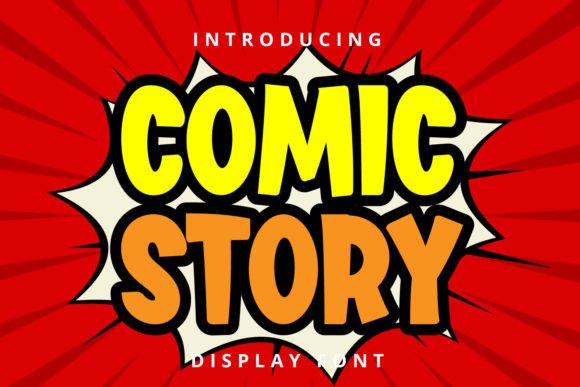
Journey into the realm of imagination with Comic Story Font, a delightful display font brimming with playfulness and authenticity. Specially crafted for children's activities and elementary school designs, this font is guaranteed to captivate young minds and add a touch of whimsy to any project.
As a display font, Comic Story Font possesses a distinctive charm that demands attention. Its playful curves and authentic style evoke a sense of familiarity and comfort, making it the perfect choice for creating designs that resonate with children. With its captivating letterforms, Comic Story Font breathes life into stories, bringing characters and concepts to life with unparalleled vibrancy.
Parents and educators seeking an engaging font for school programs will find solace in Comic Story Font. Its easy-to-read characters and playful demeanor foster a positive learning environment, encouraging children to dive deeper into their studies. The font's inviting nature makes it ideal for textbooks, storybooks, presentations, and a myriad of other educational materials.
Beyond the classroom, Comic Story Font opens up a world of possibilities for designers seeking to create captivating designs that appeal to children. Whether crafting invitations for birthday parties, designing posters for school events, or creating marketing materials for children's products, this font is the perfect choice for injecting a touch of magic into any project.
With its versatility and charm, Comic Story Font is not just a font; it's an invitation to embark on an adventure, where imagination reigns supreme. Its ability to transform ordinary words into extraordinary expressions makes it a must-have for designers seeking to create designs that capture the hearts and minds of children.